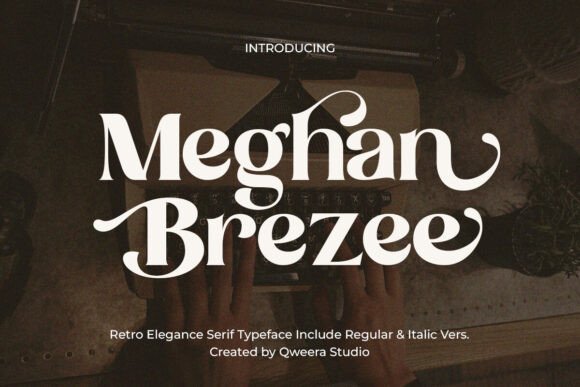
Meghan Breez Font: Retro Serif for Elegant Branding & Social Media Design
About the Meghan Breez Font
Add a touch of class to your work with the Meghan Breez Font, a truly exceptional typeface. Meghan Breeze – Retro Serif Typeface with Timeless Elegance
Meghan Breeze is a distinctive retro serif font that artfully combines vintage charm with contemporary sophistication. Featuring both Regular and Italic styles, this typeface is enhanced with stylish alternates and ligatures to unlock limitless creative potential.
Ideal for branding, posters, magazines, and premium print projects, Meghan Breeze brings effortless refinement to your designs. Its nostalgic aesthetic and adaptable features create the perfect balance of classic appeal and modern versatility.
Elevate your creative projects with Meghan Breeze and infuse them with enduring, elegant character.
Key Features:
✔ Retro-inspired serif design
✔ Regular & Italic versions
✔ Stylish alternates & ligatures
✔ Perfect for print & branding
✔ Timeless vintage aesthetic
Perfect For:
– Vintage-inspired branding
– Editorial layouts
– Premium packaging
– Poster designs
– Classic logo creation
Meghan Breez Font Usage Examples
Meghan Breez Font Example